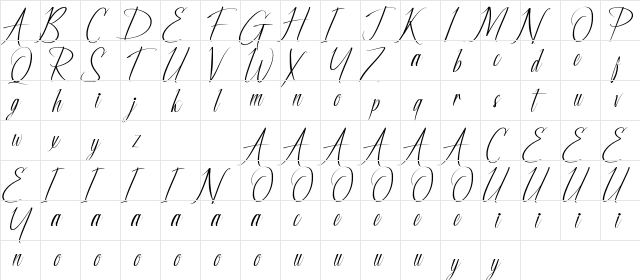
Ofstrike Demo Regular
| Foundry | NihStudio |
| Designer | Widiyanti & Suci Anita |
Design Context for Ofstrike Demo Typeface
Ofstrike Demo is a composed and adaptable typeface that performs quietly and consistently across a wide range of design contexts.